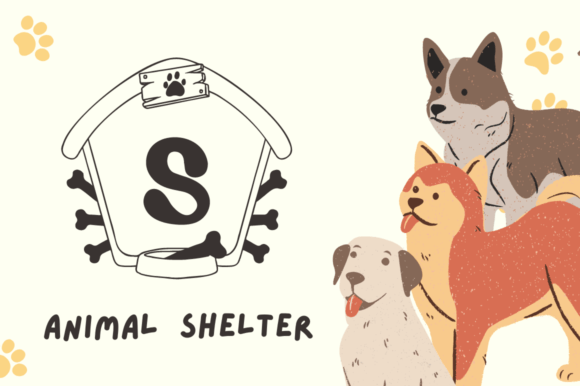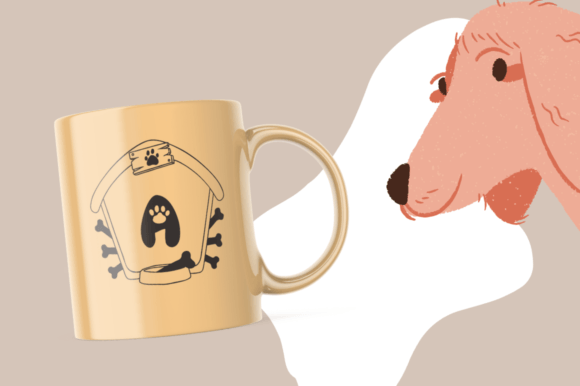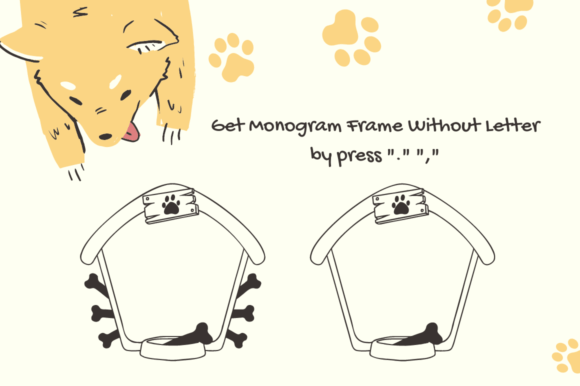
Introduction to Paw House Monogram Font
Paw House Monogram is an animal-themed decorative font.
Fall in love with its cute and lovely look and use it on your special pet or animal products, business designs, logos, branding, social media posts, and wedding cards .
Key Features of Paw House Monogram Font
Why Choose Paw House Monogram Font?
Paw House Monogram Font offers exceptional quality and versatility, making it a valuable addition to your design toolkit. Whether you’re creating for personal projects or commercial use, Paw House Monogram Font delivers professional results.